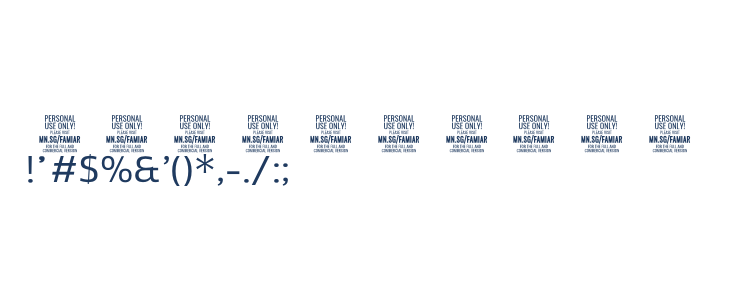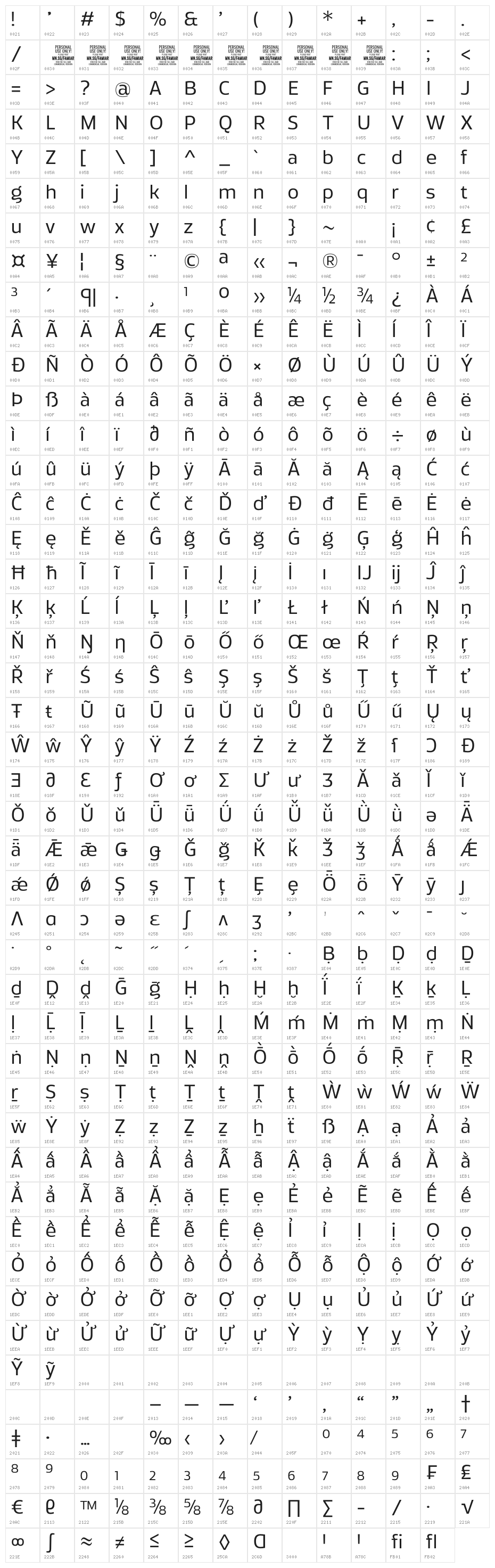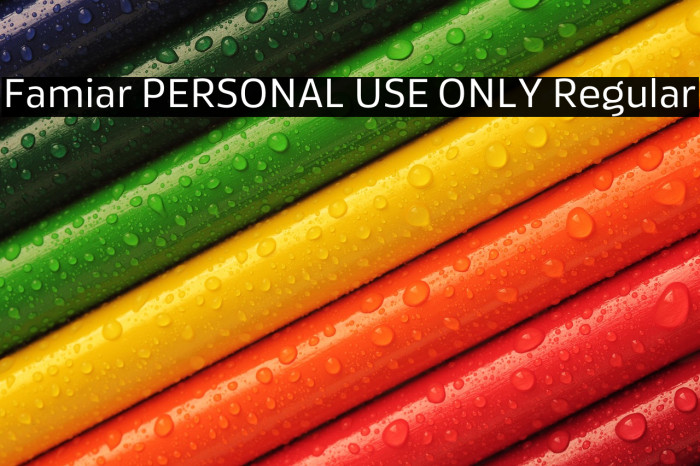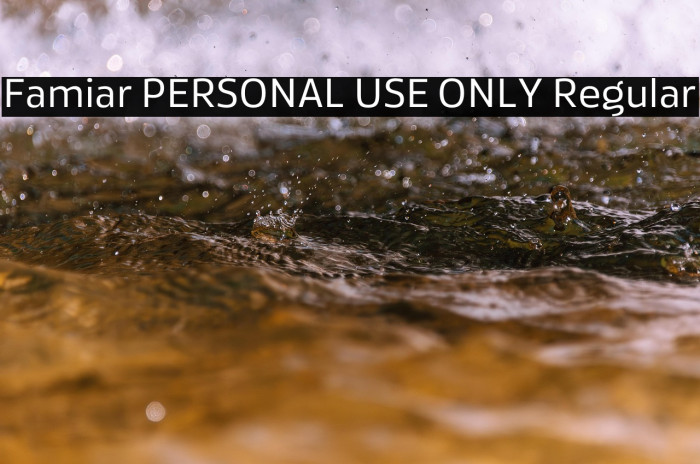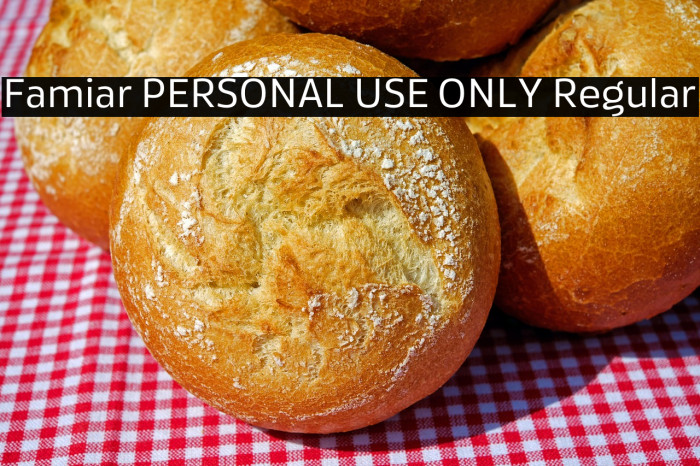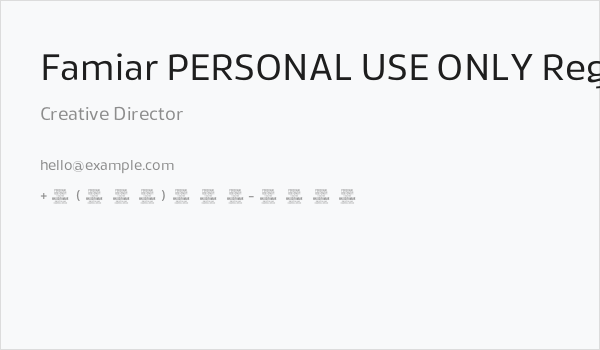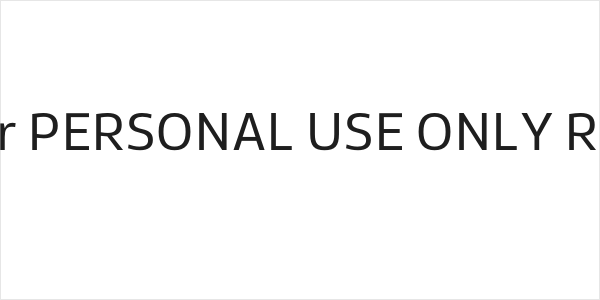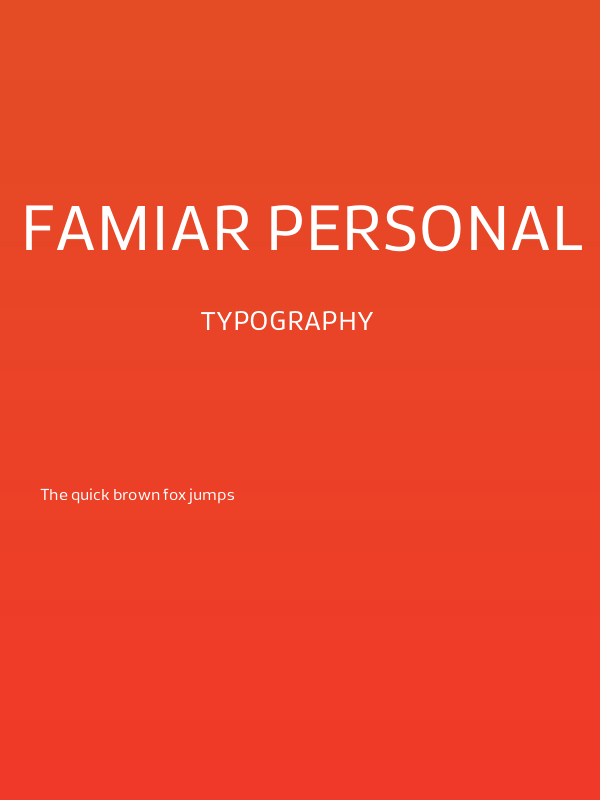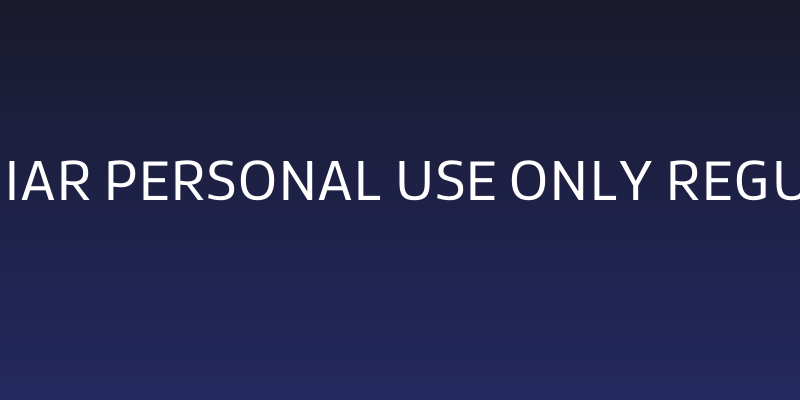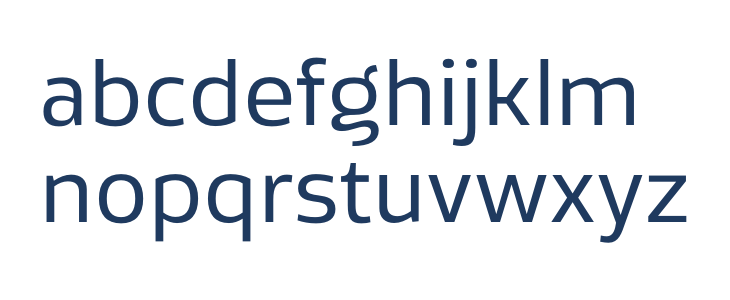
Famiar PERSONAL USE ONLY Regular Font
Famiar PERSONAL USE ONLY Regular Description
This font features a clean and modern sans-serif design with a balanced structure. The characters are well-proportioned, offering a harmonious appearance that is easy to read. The uppercase letters are bold and assertive, while the lowercase letters maintain a friendly and approachable feel. The numerals are clear and distinct, ensuring legibility in various contexts. Special characters are included, enhancing the font's versatility. The overall style is sleek and contemporary, making it suitable for a wide range of applications.